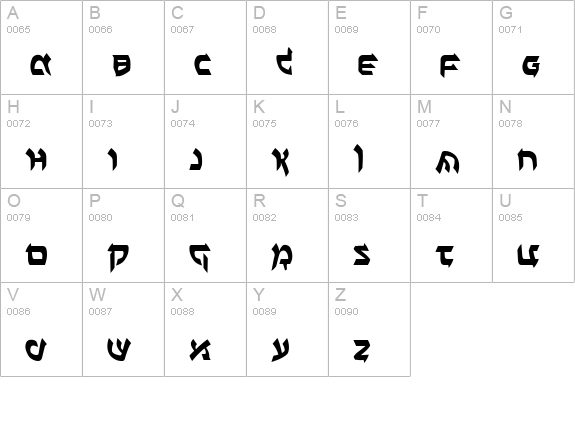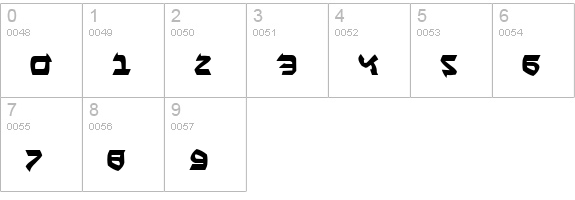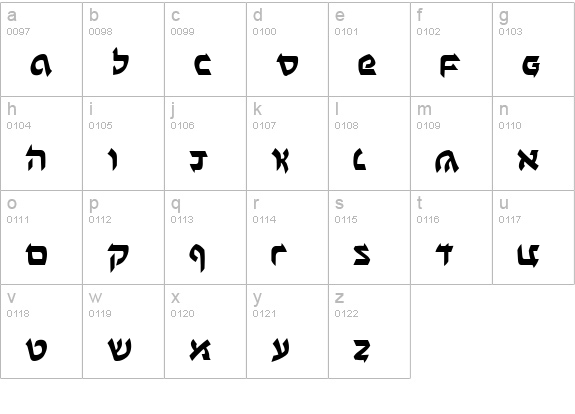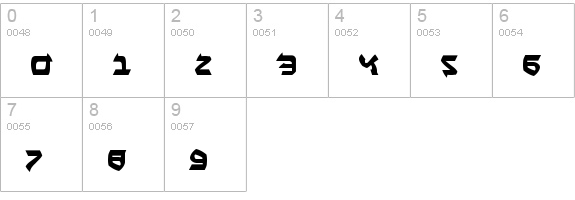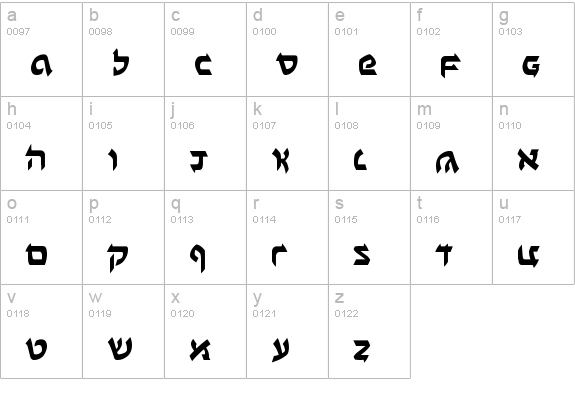
Ben-Zion Font Details
Ben-Zion font is a modern and stylish typeface that exudes elegance and sophistication. With its clean lines and sleek design, this font is perfect for a wide range of design projects, from branding to editorial design. Ben-Zion font is not only visually appealing but also highly versatile, making it a great choice for both digital and print media. The best part? Ben-Zion font is available for free download at FontsMarket.com, allowing you to add a touch of class to your projects without breaking the bank. Whether you're designing a logo, creating a website, or working on a poster, Ben-Zion font is sure to make a statement and elevate your design to the next level. Don't miss out on this fantastic opportunity to enhance your work with this exquisite font. Download Ben-Zion font today and start creating stunning designs with ease.